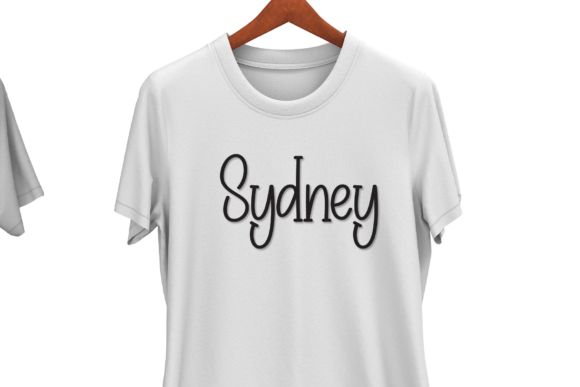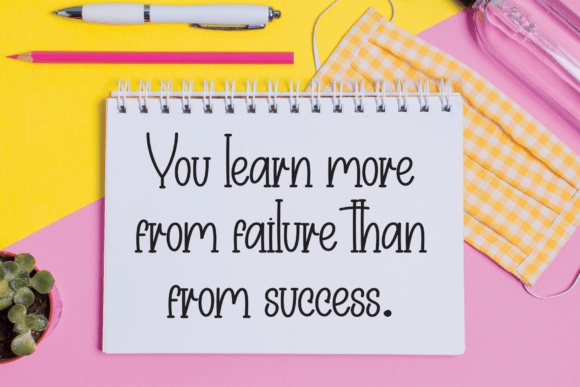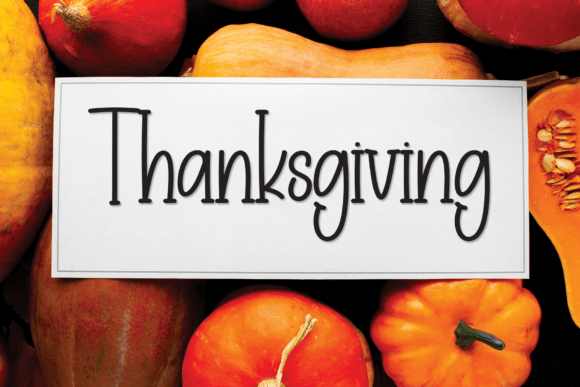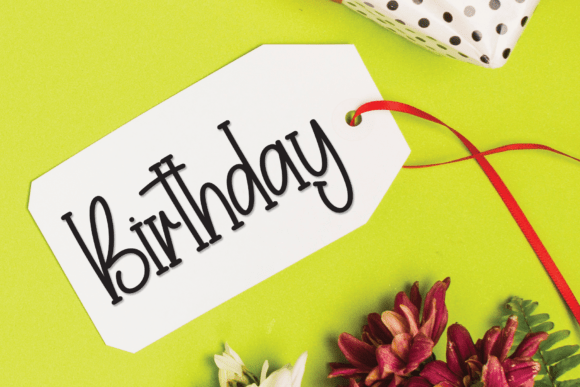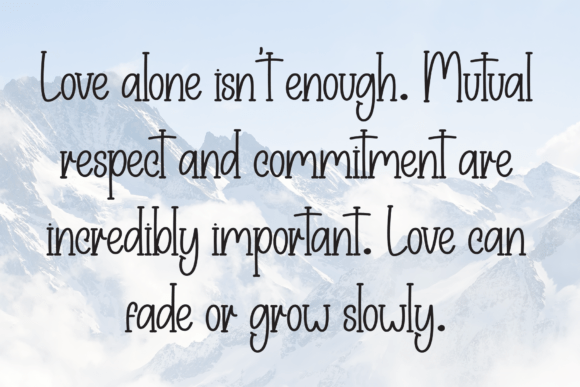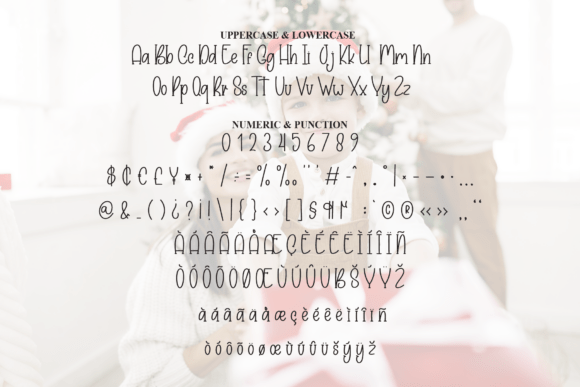
Unwrapping the Magic of the Season: Introducing Family Christmas Font
As the holiday season approaches, designers start brainstorming ways to capture the essence of warmth and togetherness. For many, it’s the smell of freshly baked cookies, the sound of carolers singing in the distance, or the sight of loved ones gathered around the tree. It’s in these moments that the true spirit of the season comes alive.
Enter the Family Christmas Font, a beautiful and inclusive typeface designed to evoke the organic, bouncy joy of festive gatherings. With its monolinear handwritten style and friendly rounded terminals, this font is the perfect bridge between a standard sans-serif and a decorative holiday script. By incorporating the Family Christmas Font into your designs, you’ll be able to tap into the magic of the season and create meaningful connections with your audience.
Whether you’re creating seasonal greeting cards, event branding, or holiday marketing campaigns, the Family Christmas Font is a valuable addition to any designer’s toolkit. Its warm and inviting feel makes it an ideal choice for designers looking to create engaging and memorable holiday content.
Family Christmas Font Key Features
- Font Family: Family Christmas Font is a unique, hand-drawn font that captures the essence of the holiday season. It features a combination of traditional and modern elements, making it perfect for various design projects.
- Unique Characteristics: The Family Christmas Font features intricate details, such as ornaments, garlands, and other festive elements, that add a touch of whimsy and personality to designs.
Designer Review: Family Christmas Font
Overall, I’m impressed with the Family Christmas Font and its festive vibe ✨. The font’s playful, handwritten feel makes it perfect for holiday-themed designs, like Christmas cards, gift tags, and social media graphics. The included ornaments and icons add an extra touch of holiday cheer ✨.
However, there are a few limitations to consider ⚠️. The font’s design can feel a bit too casual for more formal holiday designs, like wedding invitations or corporate holiday cards. Additionally, the ornaments and icons may not be as versatile as some designers might like ⚠️.
Key Features:
- Playful, handwritten feel ✨
- Included ornaments and icons ✨
- Perfect for holiday-themed designs
- Great for social media and web graphics
- Might not be suitable for formal holiday designs ⚠️
- Ornaments and icons may not be as versatile ⚠️
In conclusion, the Family Christmas Font is a great choice for designers looking to add a playful, festive touch to their holiday designs. While it may not be perfect for every project, it’s definitely worth considering for social media, web graphics, and other casual holiday designs ✨.
Tips for Getting the Most Out of Family Christmas Font
Use Family Christmas Font to add a festive touch to your holiday designs. You can use it to create invitations, cards, and other seasonal materials.
Family Christmas Font is perfect for:
- Holiday invitations and cards
- Seasonal social media graphics
- Christmas party decorations and signage
- Winter-themed website headers and footers